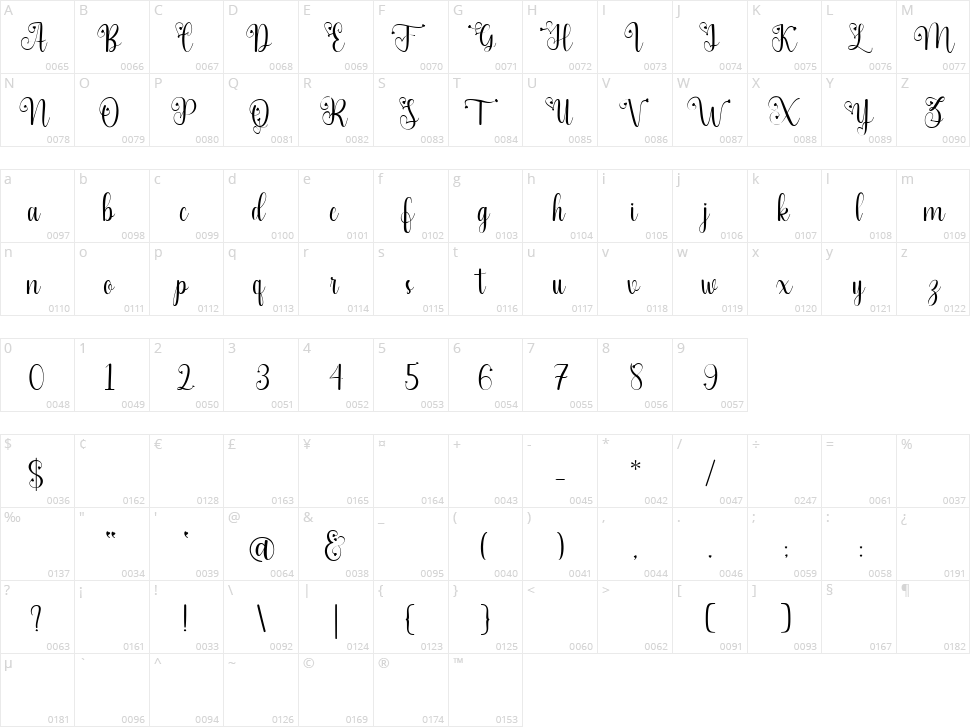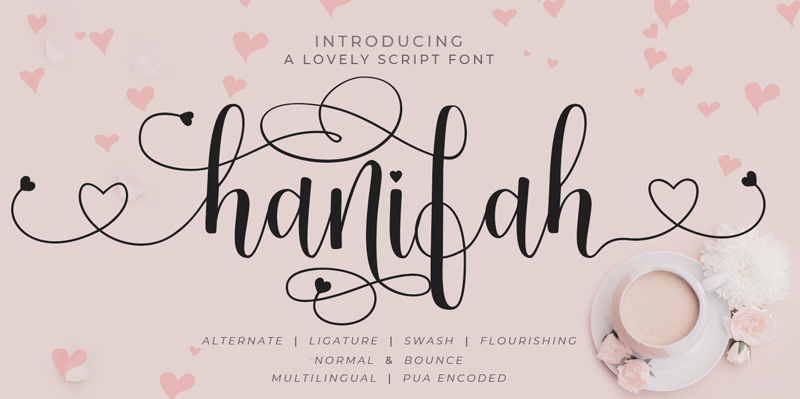
Hanifah
Note of the author Hanifah is a great script font. wrapped in subtle strokes with a stunning decoration. This font can be changed as needed, whether the script is normal, bounce, casual, or without tail. because there are many alternatives to this font.
suitable for wedding invitations, quotes, labels, logos, social media posts, special events like birthdays, valentines, Christmas and anything else you need.
- 15 Alternate ( including normal, bounce, casual, flourishing, no tail )
- 1 Swash
- Ligature